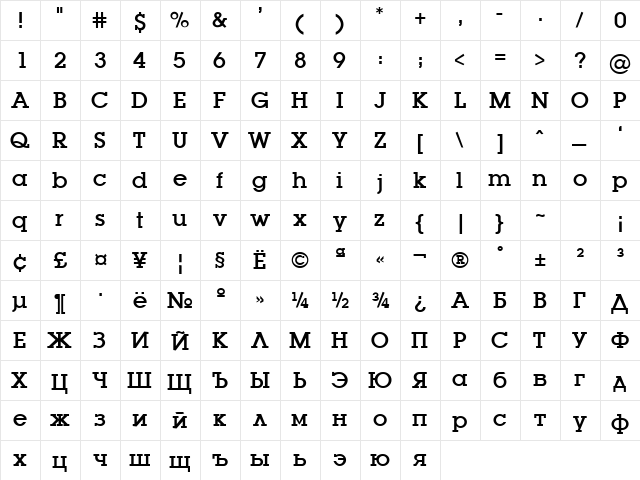
Luga Normal
Design Context for Luga Typeface
Luga is a composed and adaptable typeface that performs quietly and consistently across a wide range of design contexts.